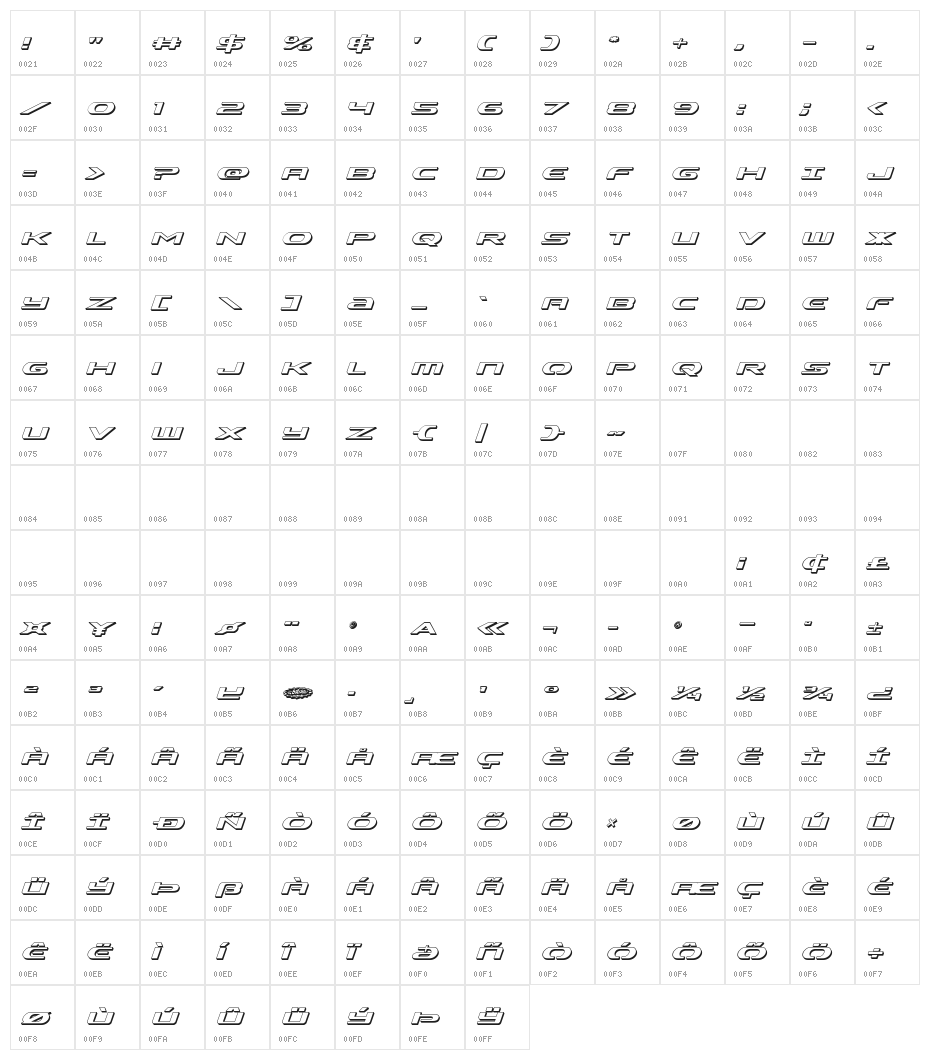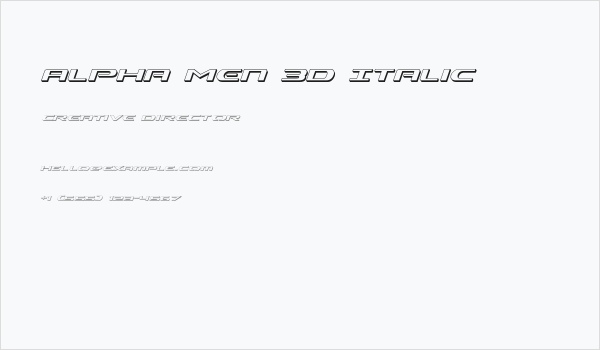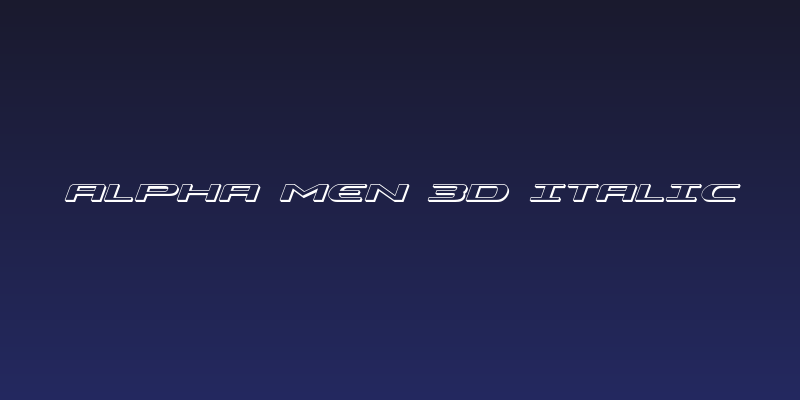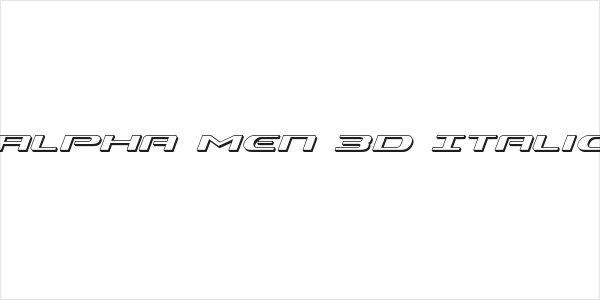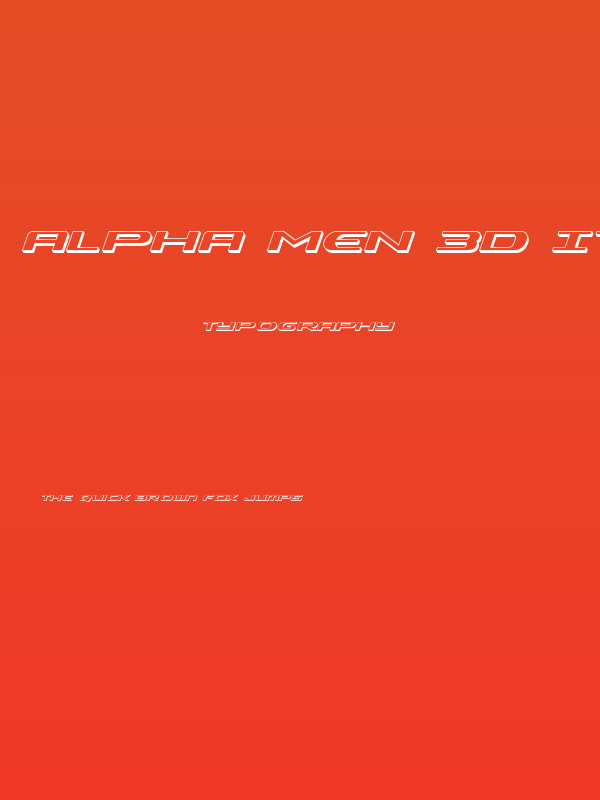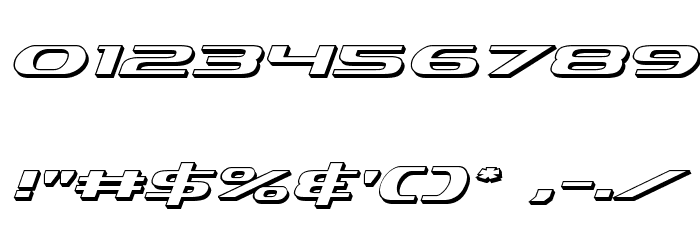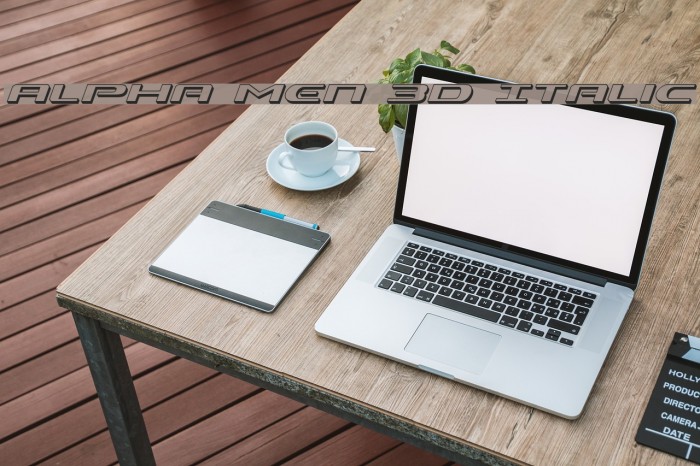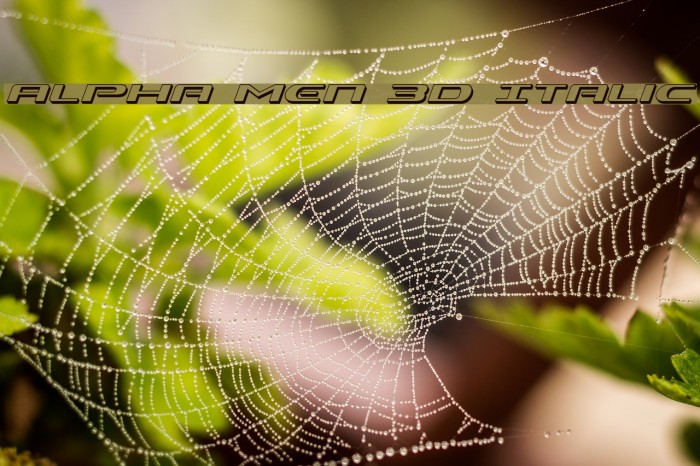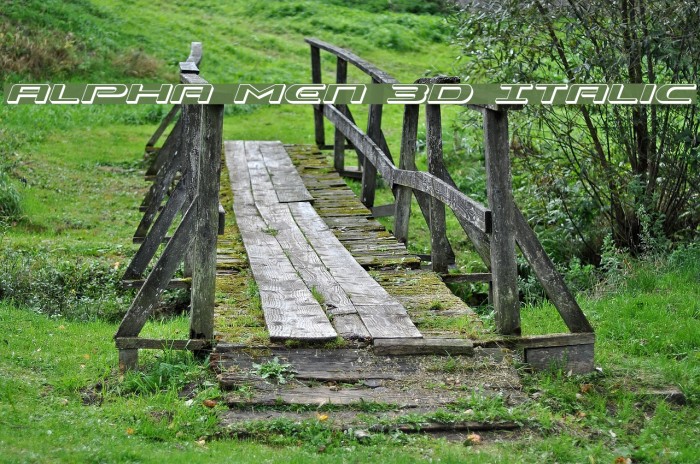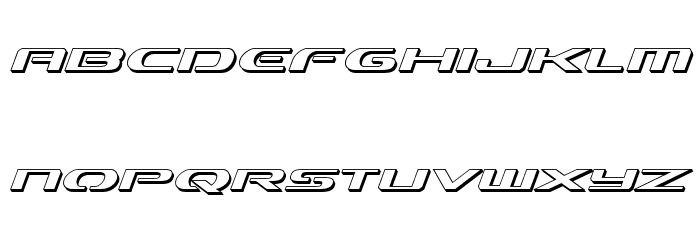
Alpha Men 3D Italic Font
Alpha Men 3D Italic Description
This font features a bold, three-dimensional appearance with a distinct italic slant, giving it a dynamic and futuristic feel. The characters are outlined, creating a hollow effect that enhances the 3D illusion. The design is clean and geometric, with sharp angles and straight lines that convey a sense of precision and modernity. The uppercase and lowercase letters maintain a consistent style, while the numerals and special characters complement the overall aesthetic. This font is ideal for projects that require a strong visual impact and a contemporary look.
| Proposed Projects | Ideal for video game titles, sci-fi movie posters, tech branding, and modern advertising. |